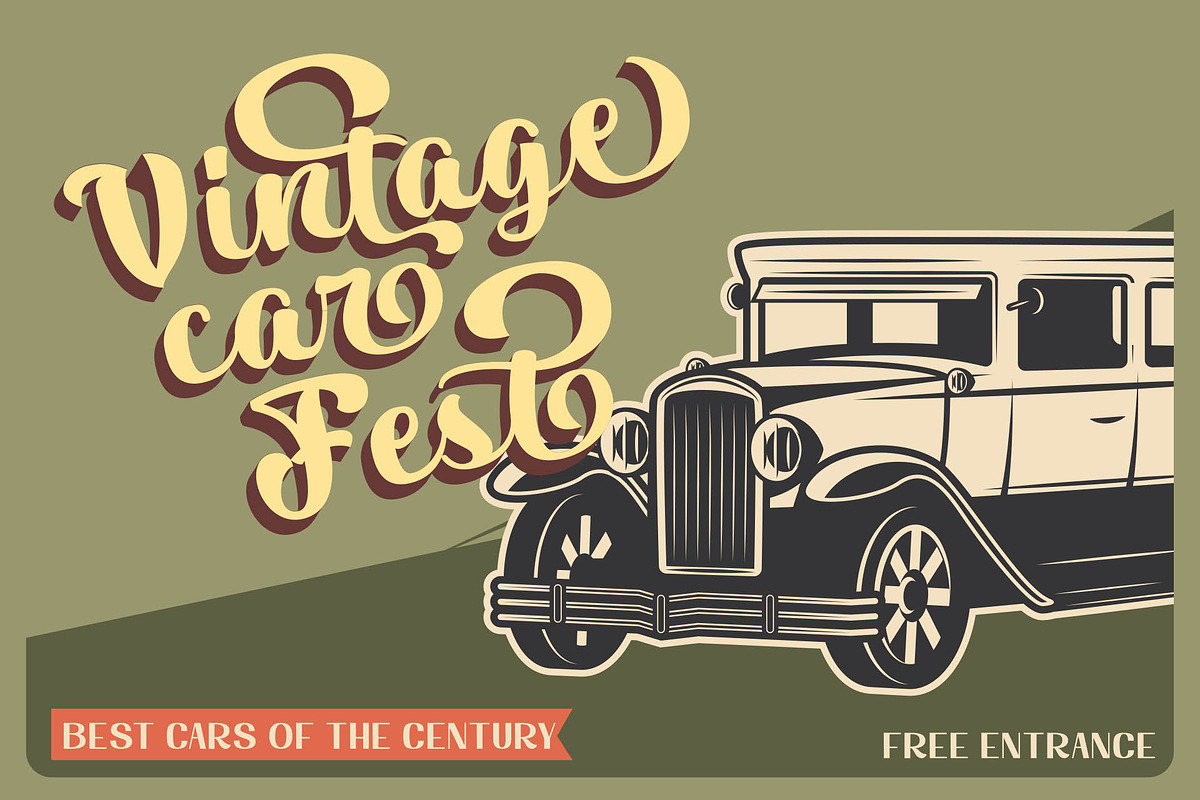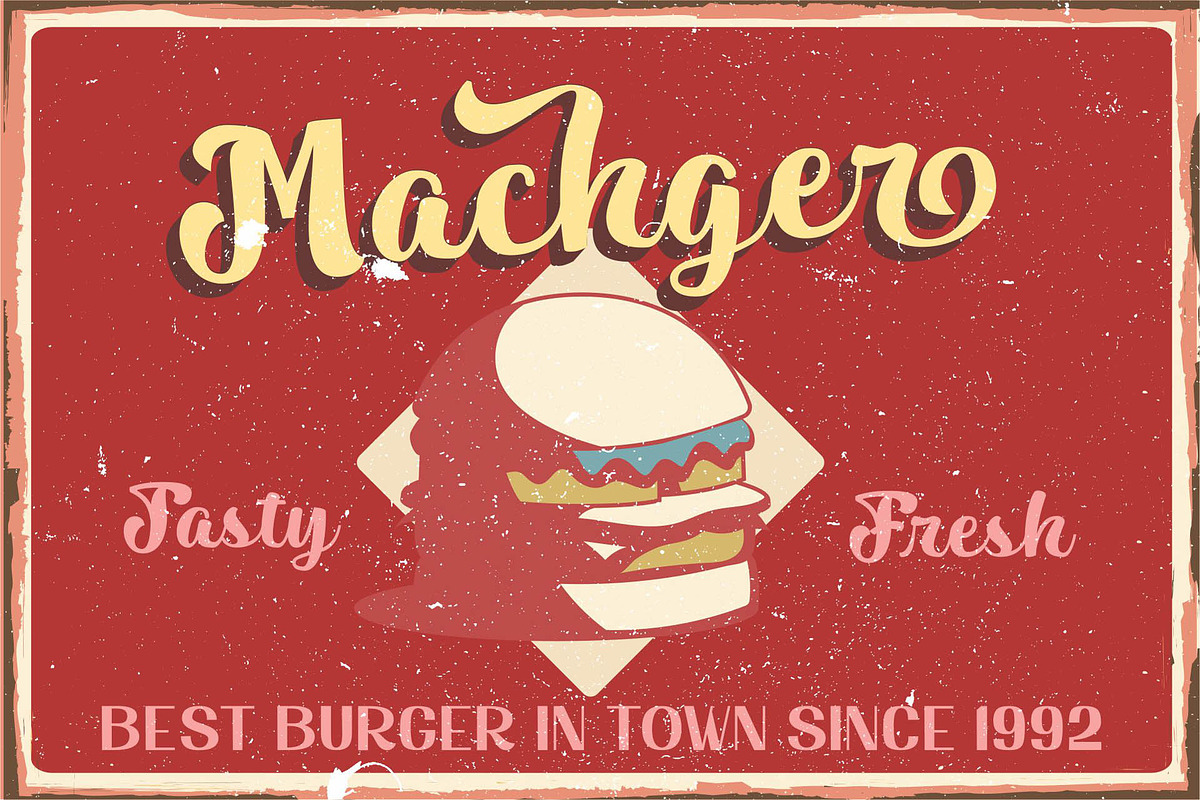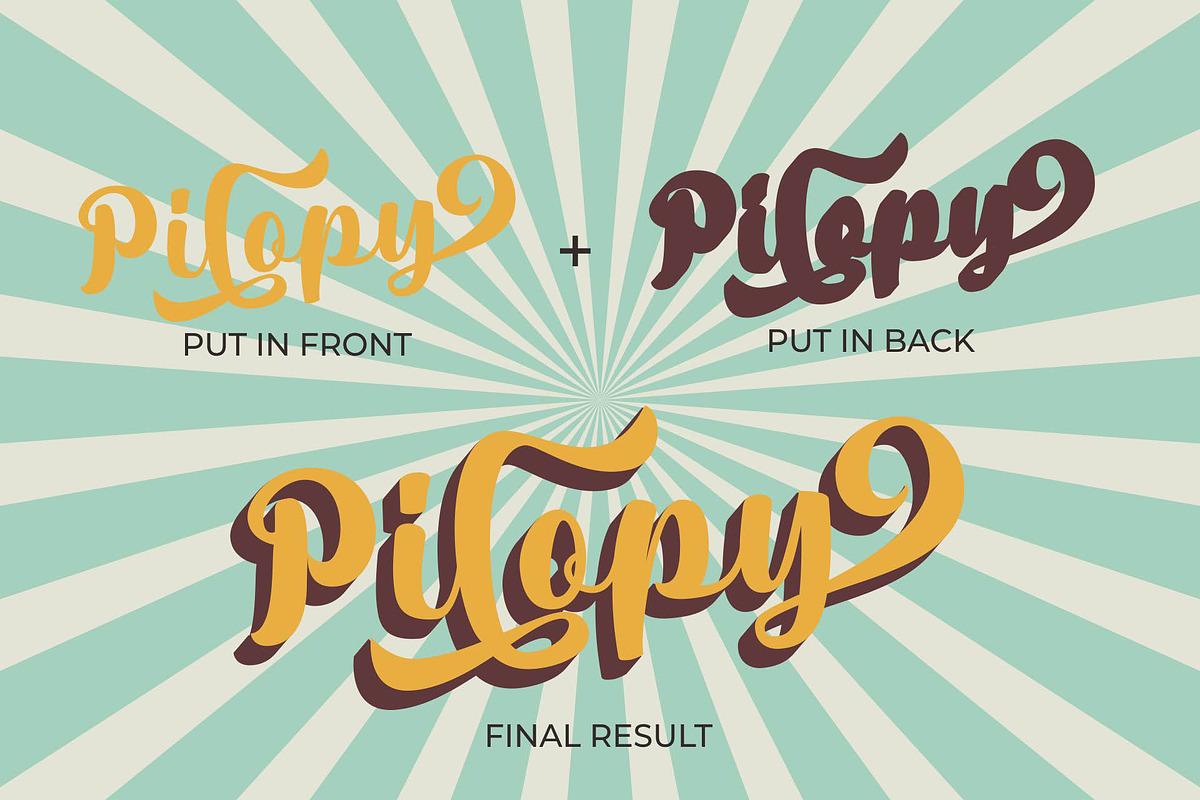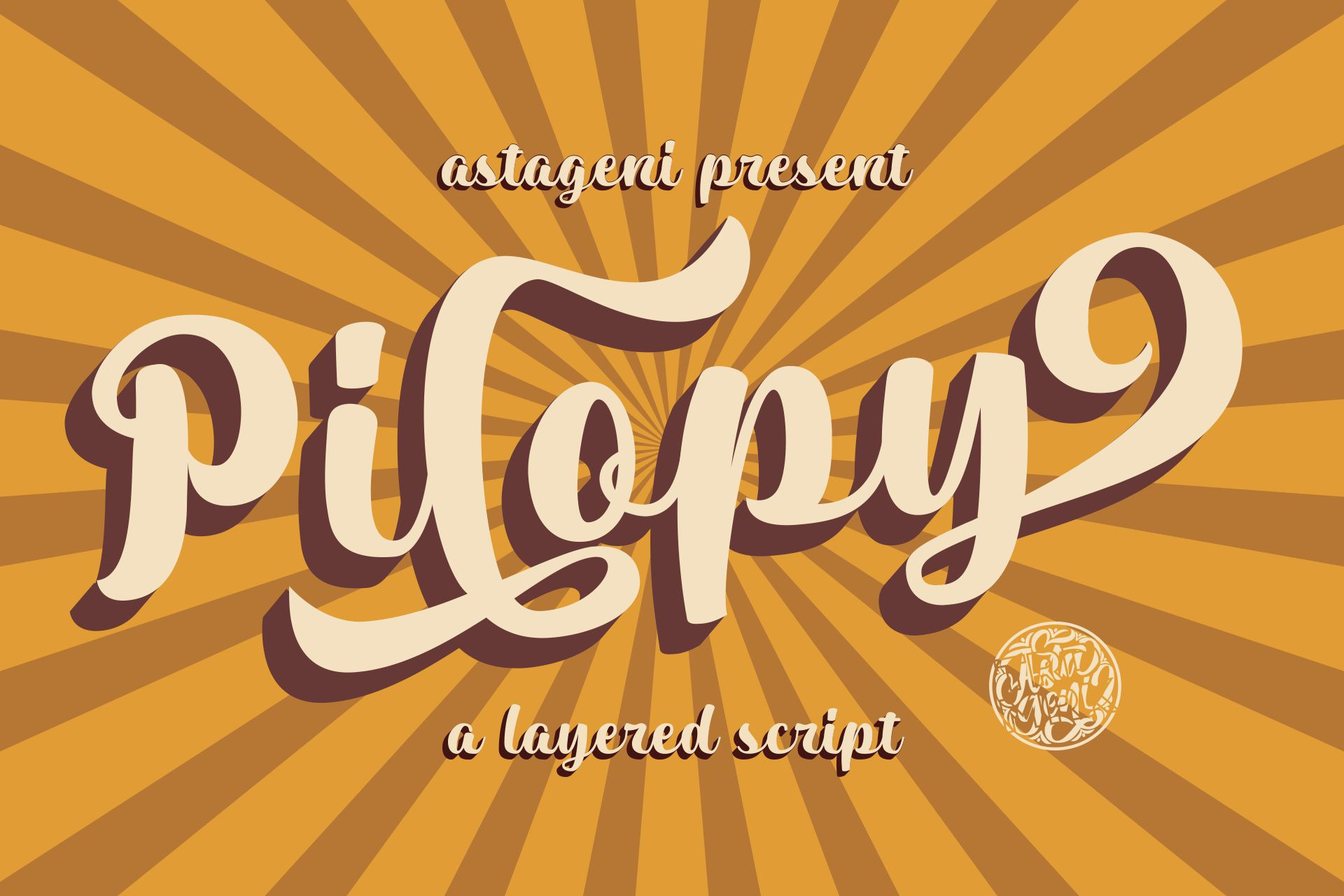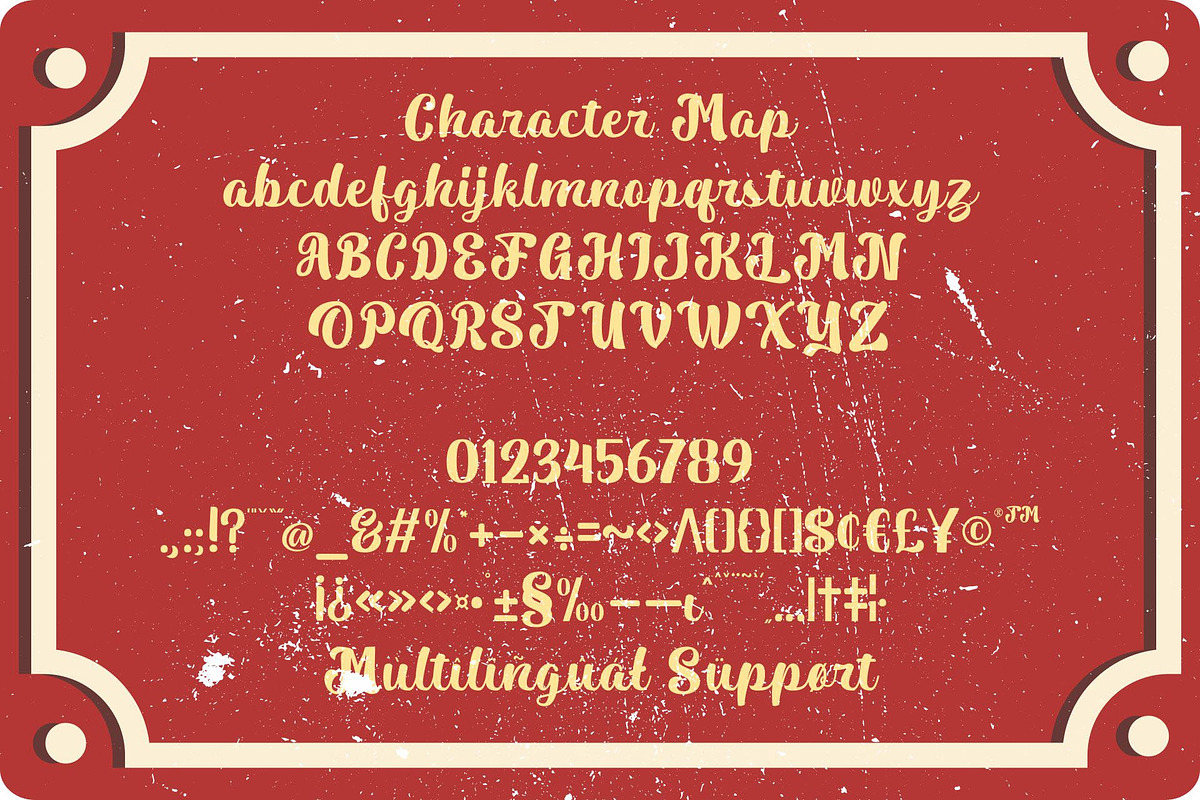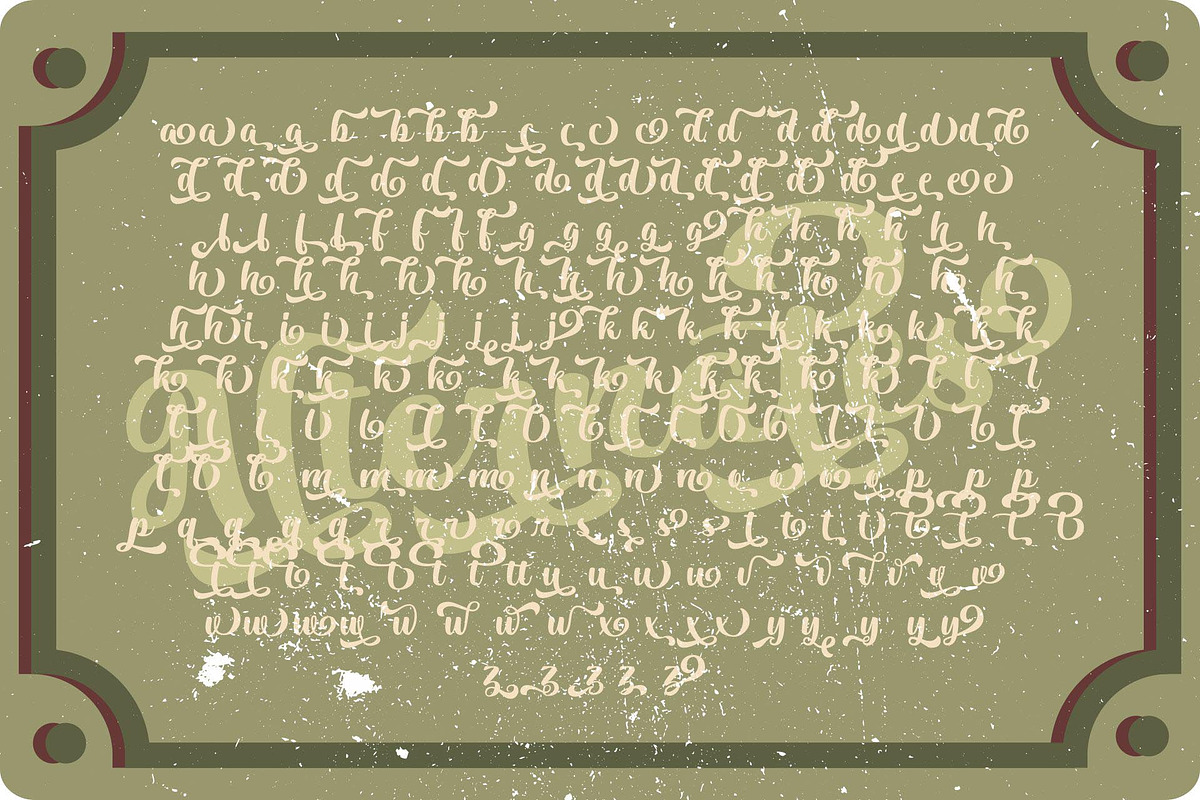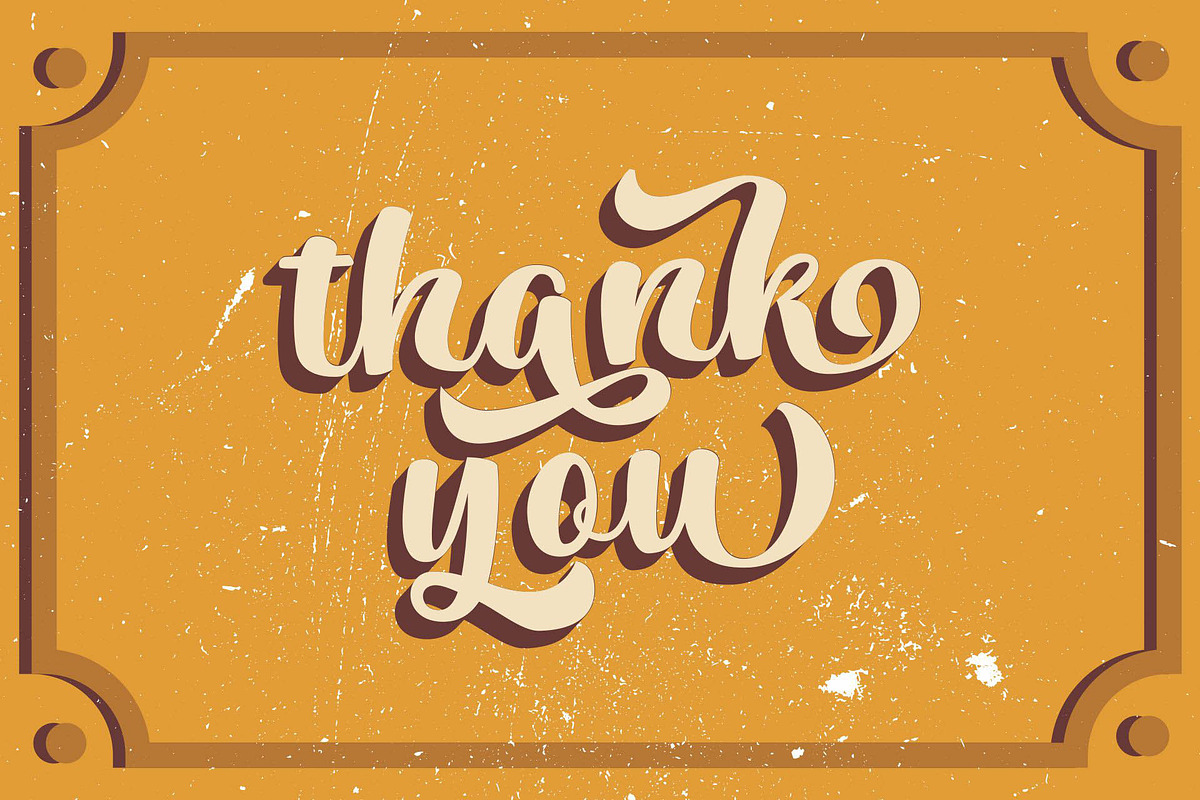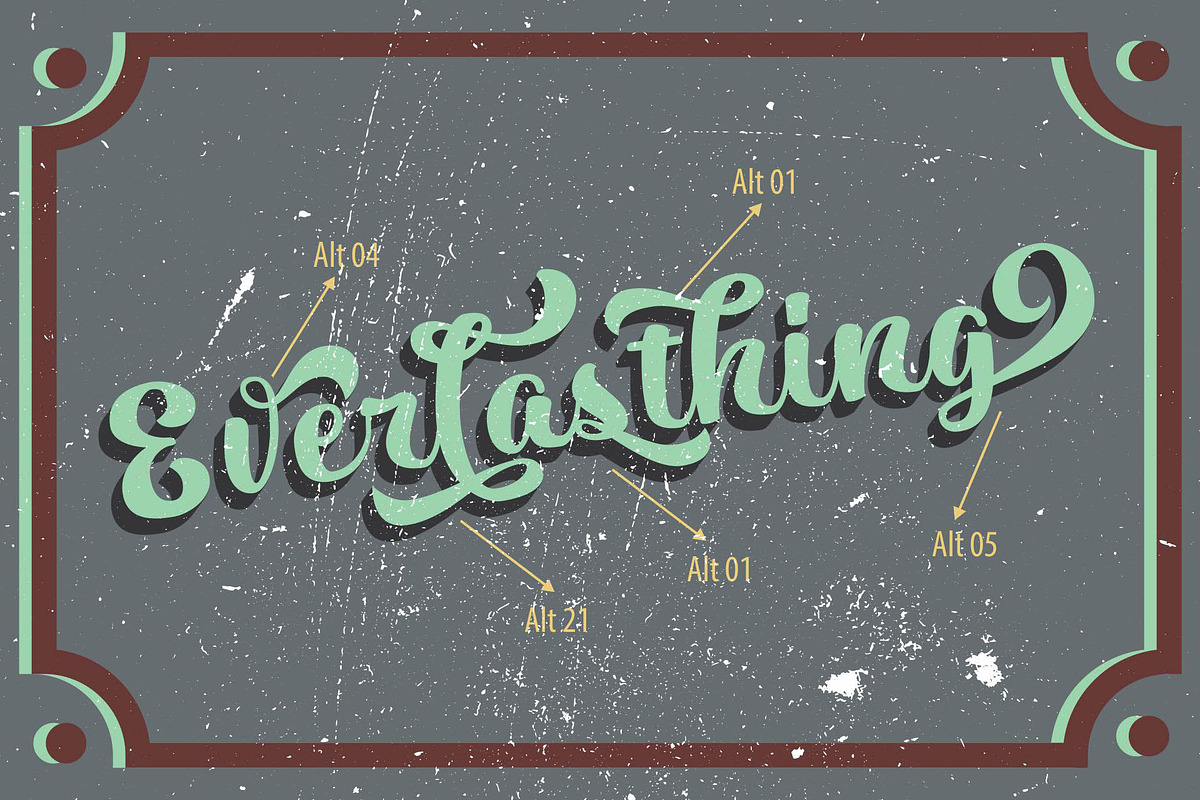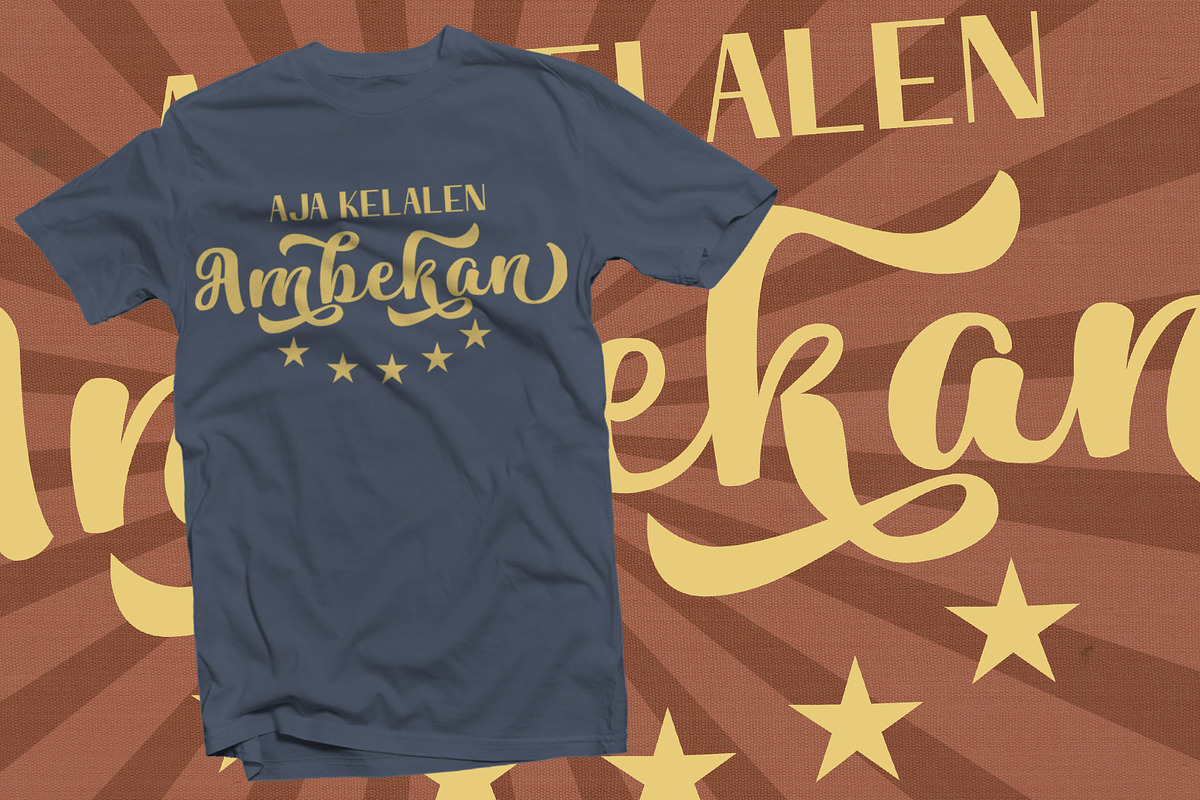
Pilopy Script | Layered Fonts
Pilopy is a Bold Script Font, inspired by lettering in 60-80n era,
Pilopy also comes with extra Extruded Font version. So you won't need extra effort for create an extrude effect for this font. This mean it will saves your time.
It will elevate a wide range of design projects to the highest level, be it branding, headings, logos, labels, and much more!
This font is PUA encoded which means you can access all of the cute glyphs and swashes with ease! It also features a wealth of special features including alternate glyphs and ligatures.